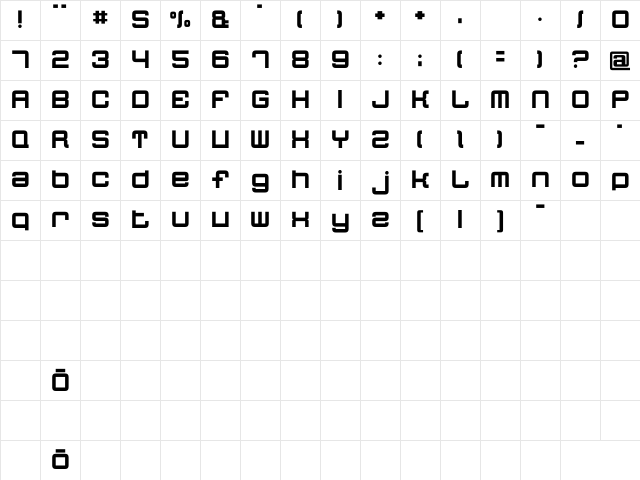
Quatron Regular
Design Context for Quatron
Quatron is a composed and adaptable typeface that performs quietly and consistently across a wide range of design contexts.